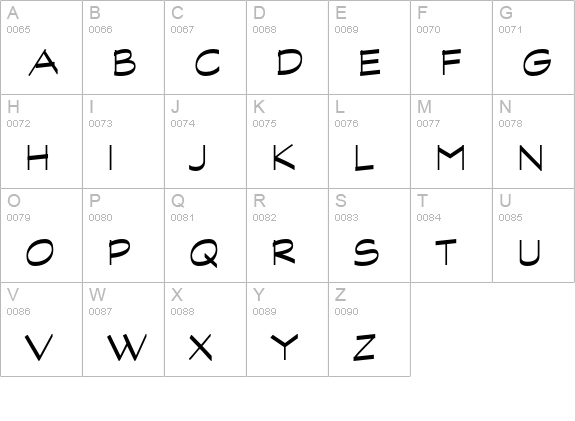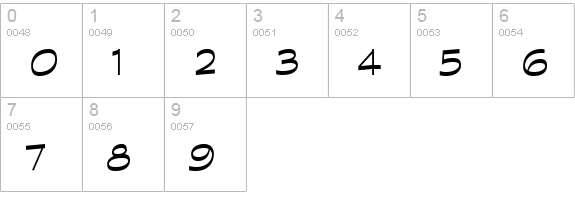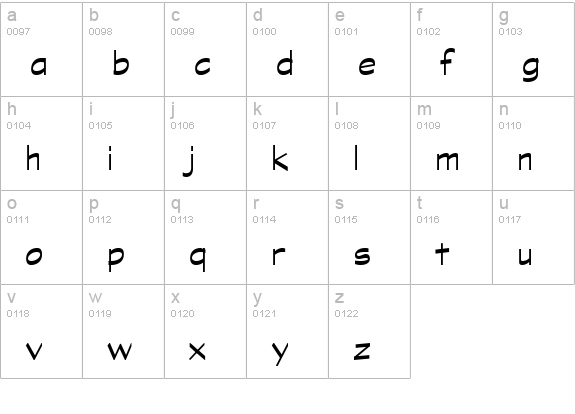
Graphite Std is a versatile and elegant font that exudes sophistication and modernity. With its clean lines and balanced proportions, Graphite Std is perfect for a wide range of design projects, from branding and advertising to editorial and web design. This font's timeless appeal makes it a popular choice for designers looking to add a touch of class to their work. What sets Graphite Std apart is not only its aesthetic appeal but also its accessibility. This high-quality font is available for free download at FontsMarket.com, making it easy for designers of all levels to access and use in their projects. Whether you're looking to create sleek and professional designs or add a touch of refinement to your work, Graphite Std is the perfect choice. Download it today and elevate your designs with this stunning and versatile font.